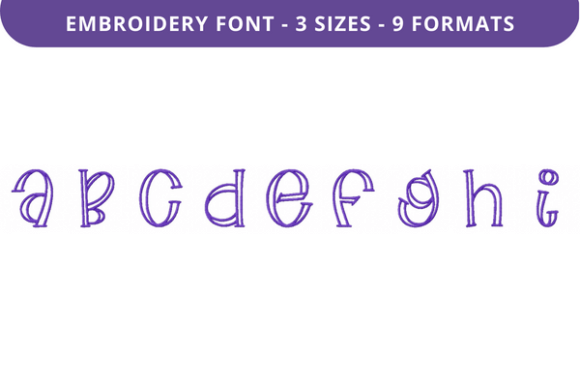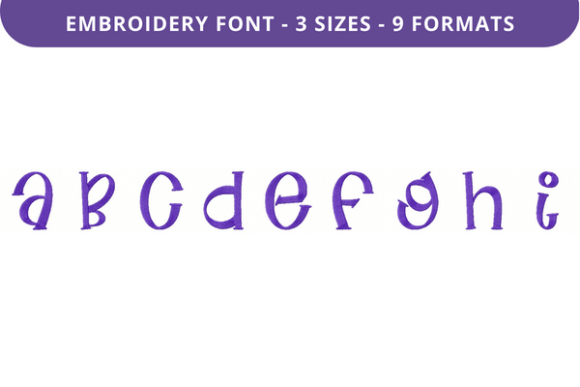
Flat Alfredo Font a to I
Flat Alfredo Font a to I is a modern, elegant typeface that blends the warmth of script with the clean lines of contemporary design. Its unique character set includes uppercase letters from A to I, making it ideal for creative projects that require a touch of personality without sacrificing readability. This font is designed to be versatile, offering a balance between sophistication and approachability.
A Visual Identity with Personality
Flat Alfredo Font a to I features a distinct visual style that combines elements of handwritten elegance with a flat, modern aesthetic. The characters are carefully crafted to maintain a consistent stroke weight, giving the font a clean and polished look. Unlike traditional script fonts, this design avoids excessive embellishment, making it suitable for both digital and print applications.
The font’s personality is warm and inviting, making it a great choice for branding, personalization, and creative expression. It carries a sense of craftsmanship while remaining accessible, which makes it appealing to a wide range of designers and creators.
Where Flat Alfredo Font a to I Shines
This font excels in environments where visual appeal meets practicality. From editorial design to social media graphics, its versatility allows it to adapt to various creative needs. Here are some key areas where it performs exceptionally well:
- Branding: Ideal for logos, taglines, and brand assets that need a memorable yet professional look.
- Marketing: Perfect for promotional materials, event invitations, and product packaging.
- Publishing: Works well in editorial layouts, book covers, and magazine headers.
- Digital Design: Suitable for website headers, social media posts, and digital banners.
- Personal Projects: Great for custom gifts, personalized textiles, and DIY crafts.
Impact on Brand Perception and Audience Engagement
Choosing the right font can significantly influence how your audience perceives your brand. Flat Alfredo Font a to I helps create a cohesive visual identity that communicates professionalism and creativity simultaneously. Its clean lines and balanced structure contribute to a sense of trust and reliability, while its elegant curves add a touch of sophistication.
When used consistently across all design assets—whether in logo design, packaging, or web content—it reinforces brand recognition. This consistency ensures that your message is delivered clearly and effectively, enhancing audience engagement and recall.
Practical Tips for Using Flat Alfredo Font a to I
Before incorporating Flat Alfredo Font a to I into your projects, consider the following best practices:
- Project Fit: Evaluate whether the font aligns with the tone and purpose of your project. For example, it may work well for luxury branding but might not be the best fit for a tech startup.
- Font Pairing: Experiment with pairing it with complementary typefaces to create visual harmony. For instance, combining it with a sans-serif font can add contrast and balance.
- Readability: Test the font at different sizes and resolutions to ensure it remains legible in both print and digital formats.
Real-World Applications and Examples
Flat Alfredo Font a to I has already found a place in a variety of real-world applications. One popular use is in custom embroidery projects, where its clean lines and elegant curves make it perfect for names, dates, and quotes. It's also commonly used in editorial design for headlines and captions, adding a refined touch to otherwise straightforward layouts.
For small business owners, this font offers an affordable way to elevate their brand visuals. Whether it's for a boutique store's signage or a blogger's website header, the font adds a level of professionalism that resonates with customers.
Why Choose a Premium Embroidery Font?
In today’s competitive design landscape, using a premium embroidery font like Flat Alfredo Font a to I can make a significant difference. These fonts are typically more refined and versatile than free alternatives, offering better quality and greater flexibility in design applications.
Moreover, the inclusion of multiple embroidery file formats ensures compatibility with a wide range of embroidery machines, making it a valuable asset for both hobbyists and professionals. This attention to detail reflects the font’s commitment to quality and usability.
Conclusion
Flat Alfredo Font a to I is more than just a typeface—it’s a tool for creating meaningful, visually engaging designs. Whether you’re a designer, marketer, or small business owner, this font offers a blend of style, functionality, and versatility that can enhance your creative output. By understanding its strengths and applications, you can make informed decisions that elevate your brand and connect with your audience in new and meaningful ways.